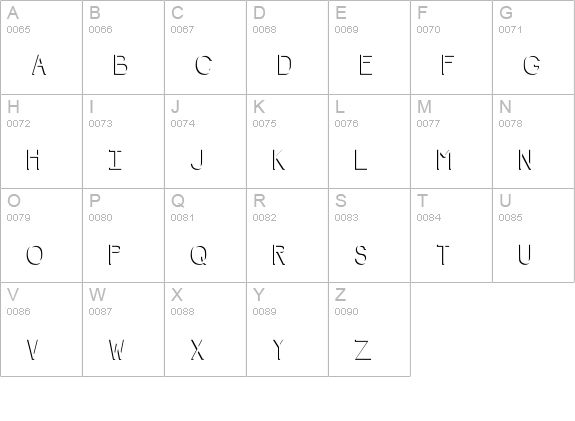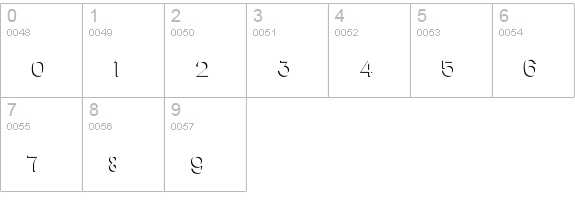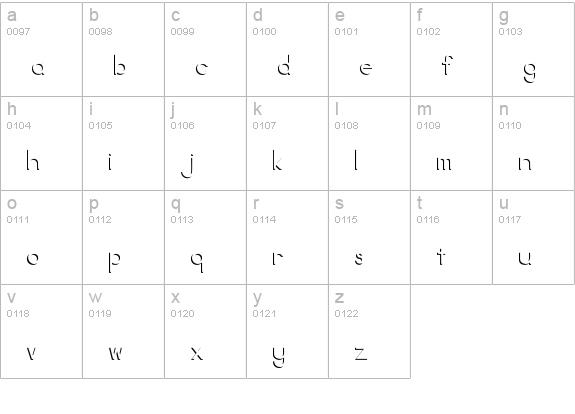
Introducing NegativeSpace font, a stunningly unique typeface that effortlessly merges elegance with a touch of modernity. Its captivating design, meticulously crafted with intricate details, sets it apart from the rest, making it the perfect choice for any creative project. NegativeSpace font showcases its versatility, seamlessly adapting to various design styles, whether it be for branding, editorial work, or web design. Its sleek and contemporary aesthetic exudes sophistication, while the subtle curves and negative spaces add a dynamic and captivating element to any composition. This font's carefully designed letterforms effortlessly capture attention, drawing the eye with its harmonious balance between positive and negative spaces. Its clean lines and well-defined shapes make it easily readable even at smaller sizes, ensuring legibility is never compromised. But what makes NegativeSpace font even more impressive is that it is available free of charge. Yes, you read that right! This exceptional font can be freely downloaded and used for both personal and commercial projects. FontsMarket.com offers a hassle-free experience, where you can access this font in just a few clicks. So whether you're a seasoned designer or a creative enthusiast, NegativeSpace font is the perfect addition to your typographic toolkit. With its impeccable design, versatility, and the fact that it is freely available at FontsMarket.com, there's no reason not to explore the endless possibilities that this font brings to your next project. Embrace the elegance, embrace the modernity – embrace NegativeSpace font.